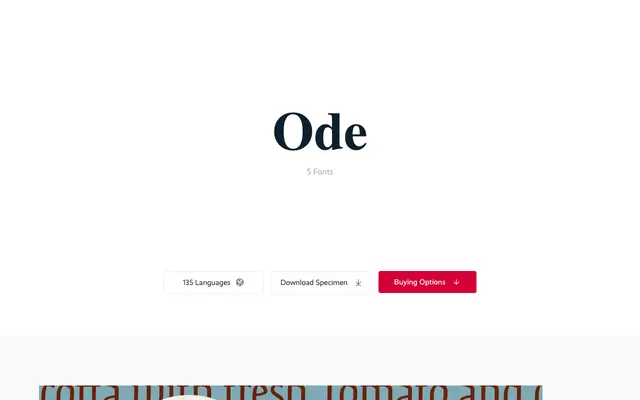
Ode
Supertype · Martin Wenzel
A five-weight blackletter family by Martin Wenzel that softens textura's stern rigidity into something genuinely usable at text sizes.
Martin Wenzel's Ode takes the Gothic script (textura) as its starting point and systematically addresses the features that make traditional blackletter difficult to read: hard corners become rounded, a gentle slant loosens the upright stiffness, and unfamiliar archaic letterforms are replaced with humanist equivalents drawn from the same broad-nib pen tradition. The result retains the characteristic counter fracture of broken script whilst reading with surprising ease across five weights from Semilight to Black. It ships with 495 glyphs, ligatures, multiple figure sets and support for 135 languages.
Ode is rooted in Gothic script (textura) tradition but deliberately reworks its conventions with rounded corners, a gentle slant and humanist letterform substitutions, making it a contemporary take on blackletter rather than a strict revival.